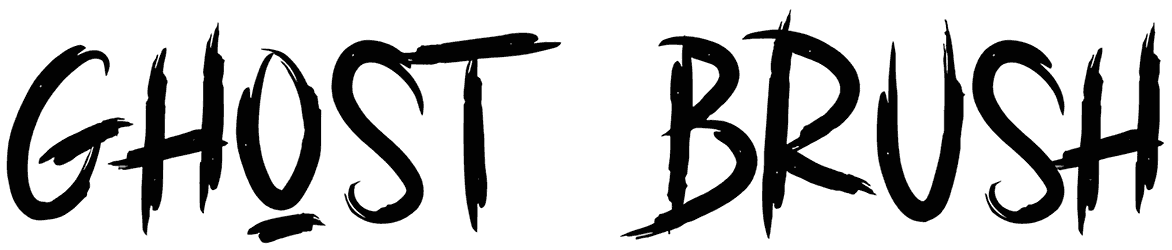
Ghost Brush Font
Ghost Brush is a highly recommended option to give your digital projects a unique feel. This horror font looks like scratched writings on the wall and can change the mood of your scripts to a scary theme.